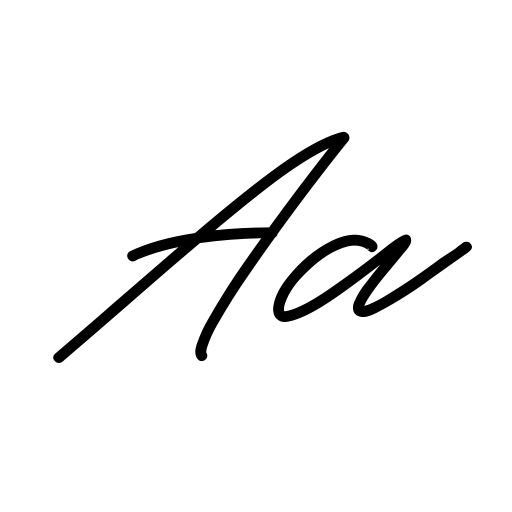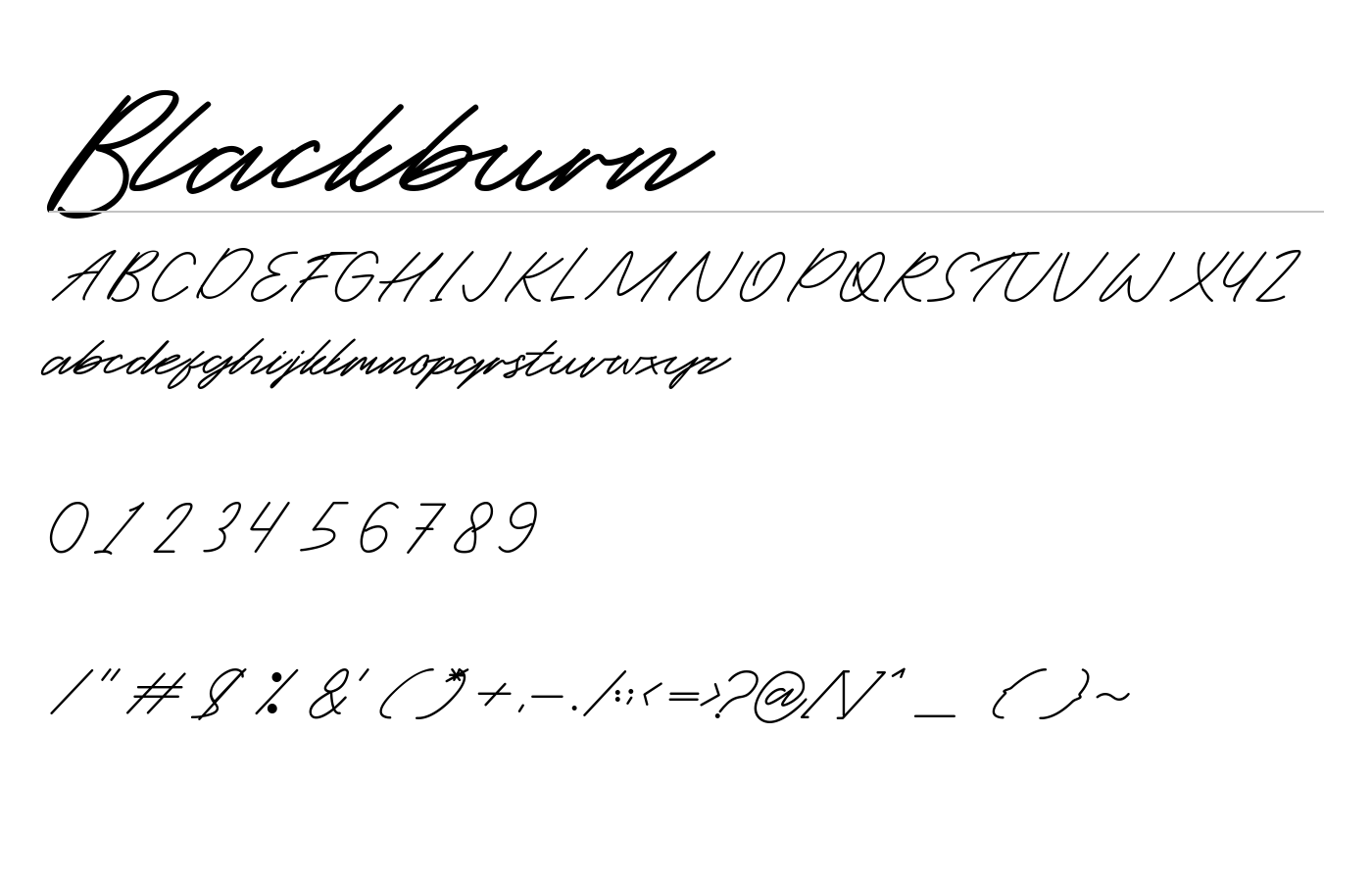
Blackburn is a sleek, elegant script font with a light, flowing stroke that mimics natural handwriting. Its narrow, slightly condensed letterforms and consistent thin lines give it a delicate and refined feel, making it perfect for sophisticated branding, invitations, and editorial design where a personal yet polished touch is desired.
Blackburn Font